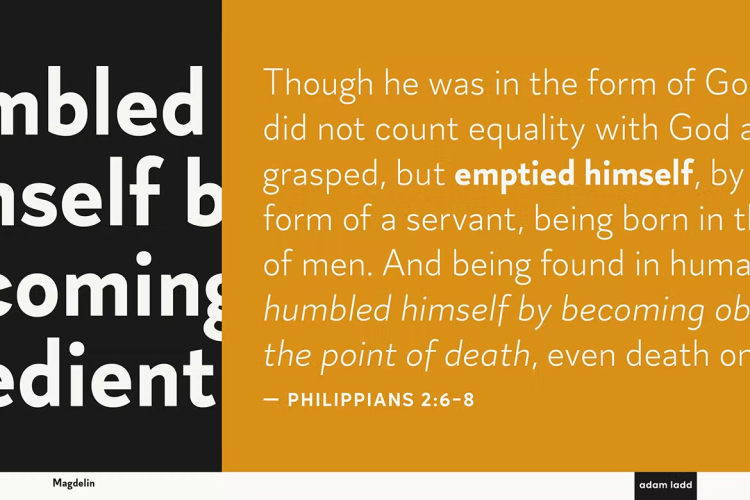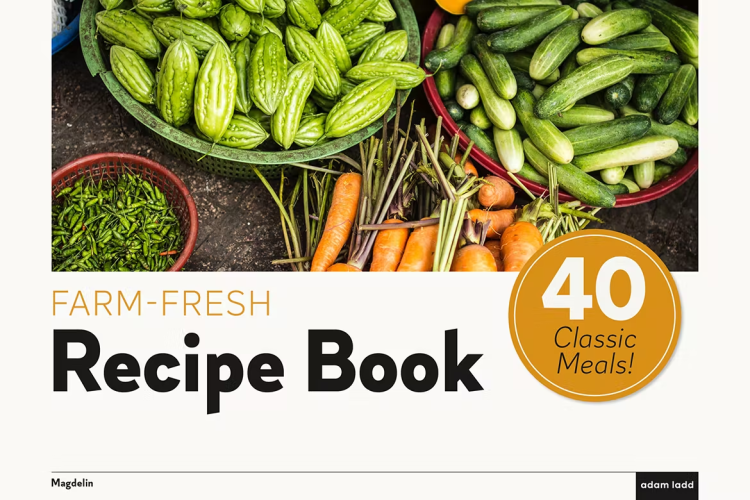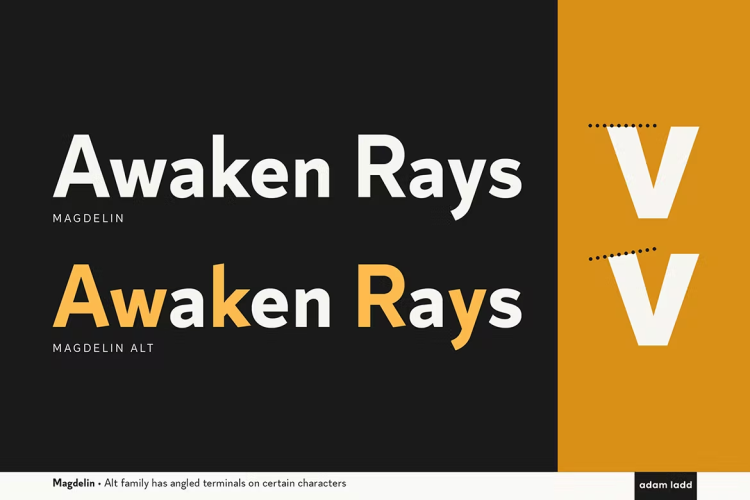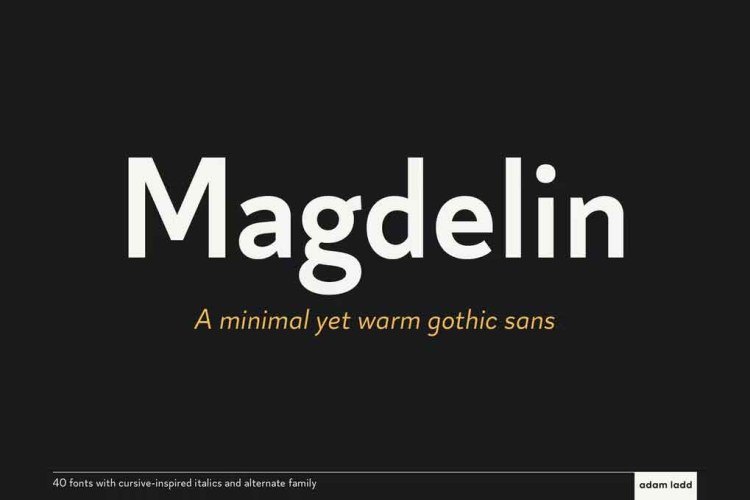
Magdelin Font Family
Magdelin is a minimal yet warm gothic sans serif typeface consisting of 40 fonts with normal and alternate families. At its core, the design is a gothic sans having simp…
Magdelin is a minimal yet warm gothic sans serif typeface consisting of 40 fonts with normal and alternate families. At its core, the design is a gothic sans having simple forms and low contrast, yet it takes some qualities from the humanist class with its calligraphy or cursive-inspired details found in the italics and the bowl shapes of characters like b and d. The weights range from thin to black.
The small x-height, longer ascenders and descenders, and semi-condensed proportions give it a bit of a vintage or classic feel while still appearing contemporary and modern in current typographic landscapes. The clean design allows it to be a useful and versatile workhorse family great for branding, packaging, editorial, books, websites, digital, and more.
With the included alternate family (Magdelin Alt) comes even more calligraphic details by having certain strokes terminate with an angle so it reflects a broad-nib pen drawn at an angle. This increases the overall warmth in appearance.
Magdelin includes many OpenType features:
Where Magdelin Font Family works best
Magdelin Font Family keeps its shape at 14 and 16 pixels, which is where interface text actually lives. Numbers and capitals stay distinguishable in tables.
Presentations are read at a distance; a clean sans with a strong bold is the safest hierarchy you can build in a hurry.
Simple letterforms survive angles, glare and movement, so Magdelin Font Family suits door signs, menus boards and exhibition panels.
What kind of work does Magdelin Font Family suit?
It sits in the Sans Serif Fonts group and reads as calligraphy, condensed, minimal, sans serif. That makes it a candidate wherever those qualities help: headings, packaging, social graphics and brand work. Set it at the size you plan to use before deciding.